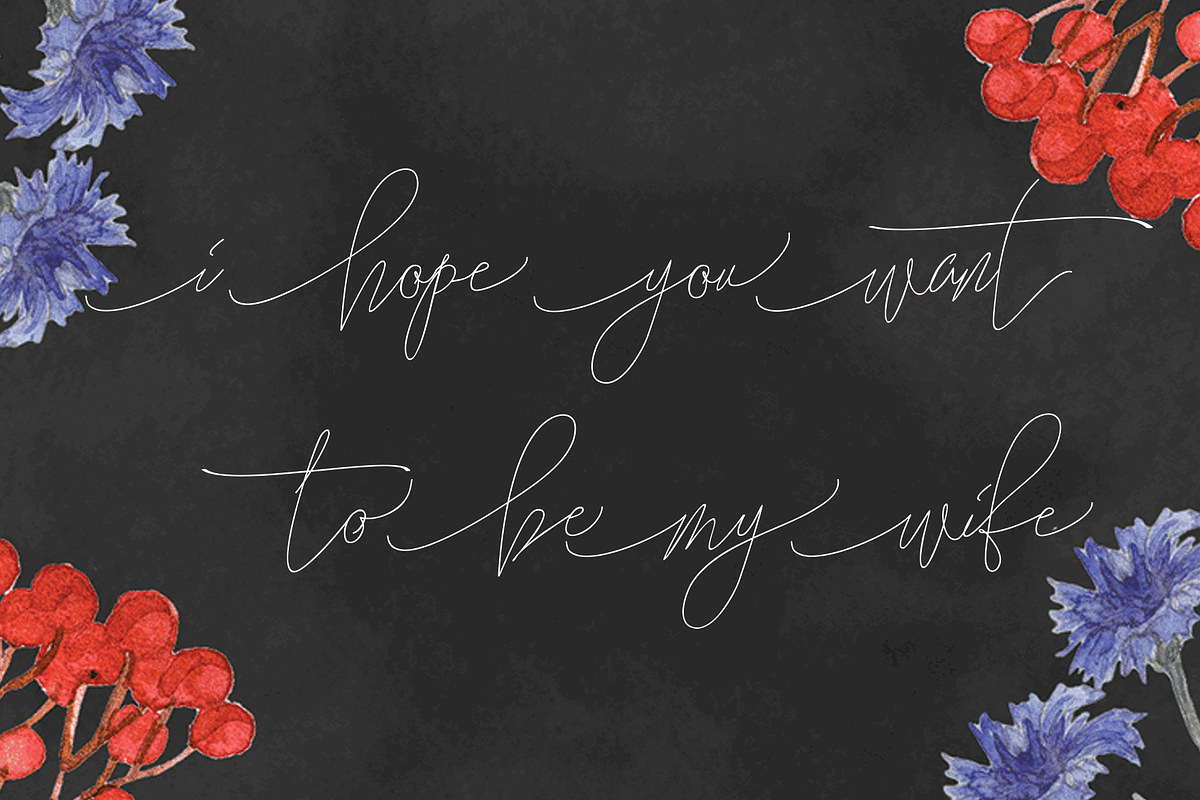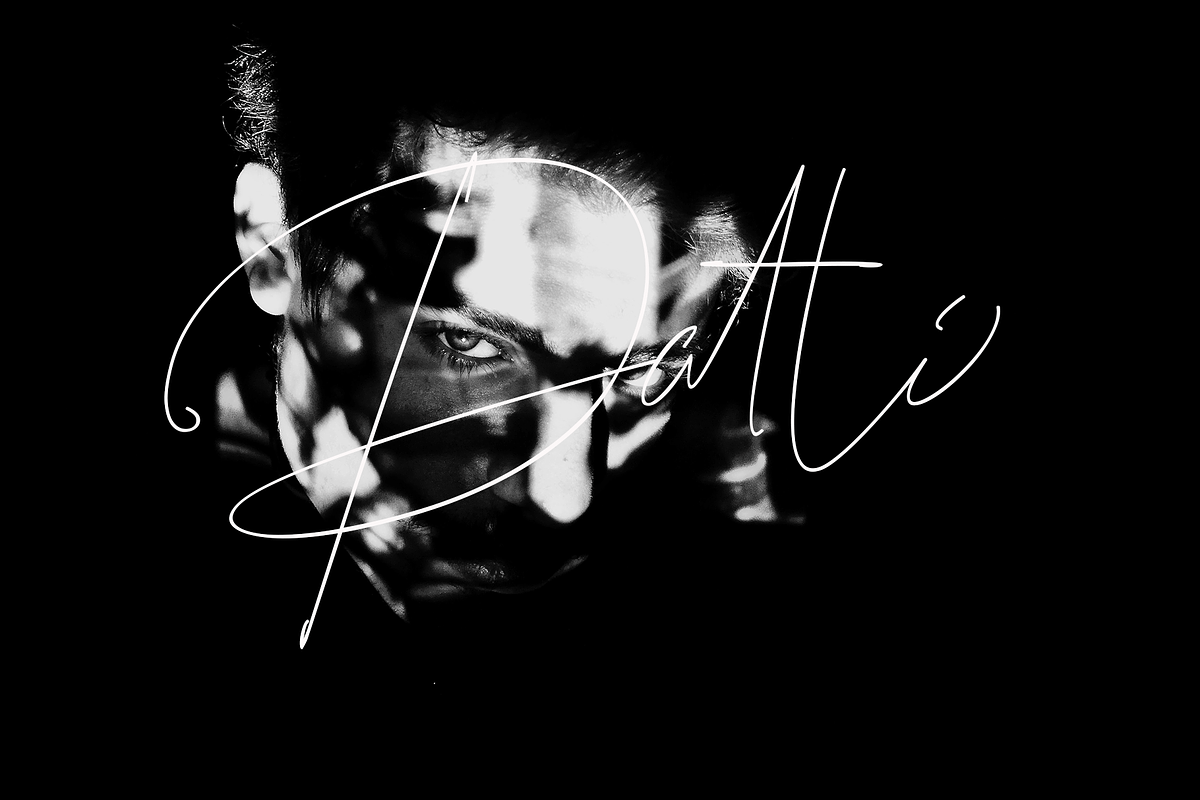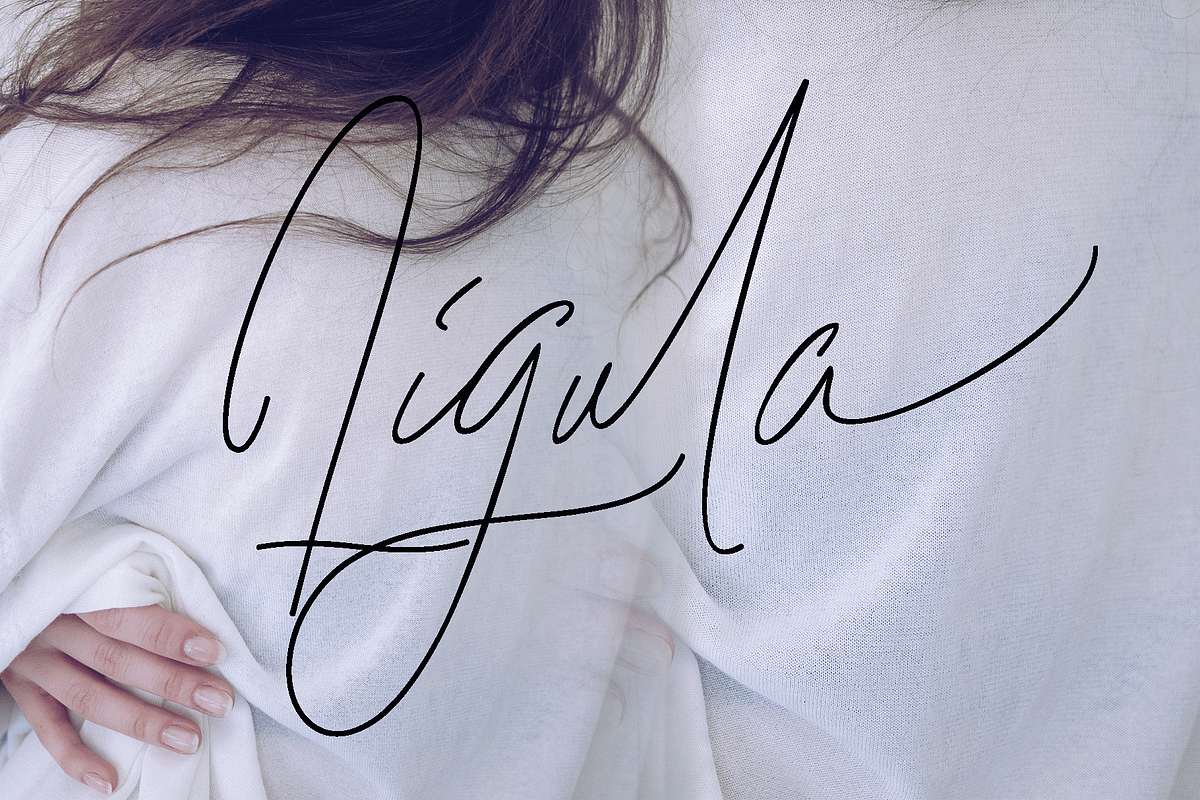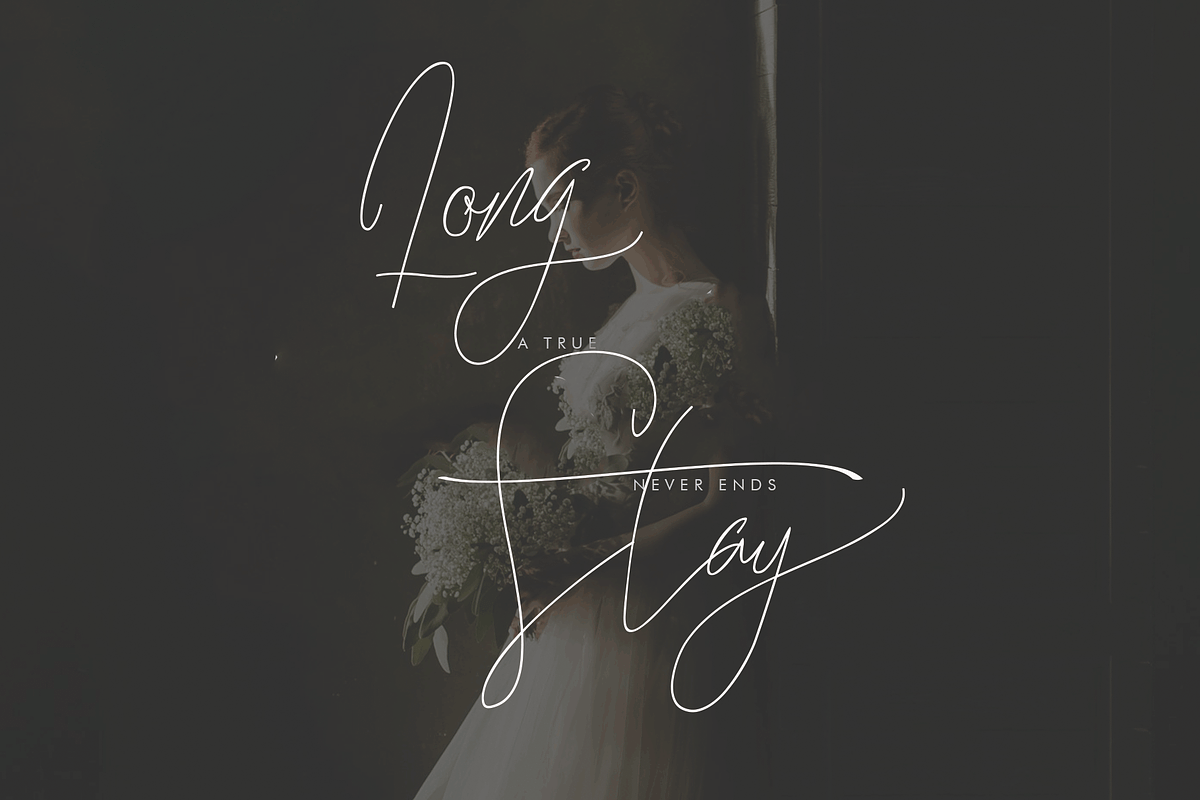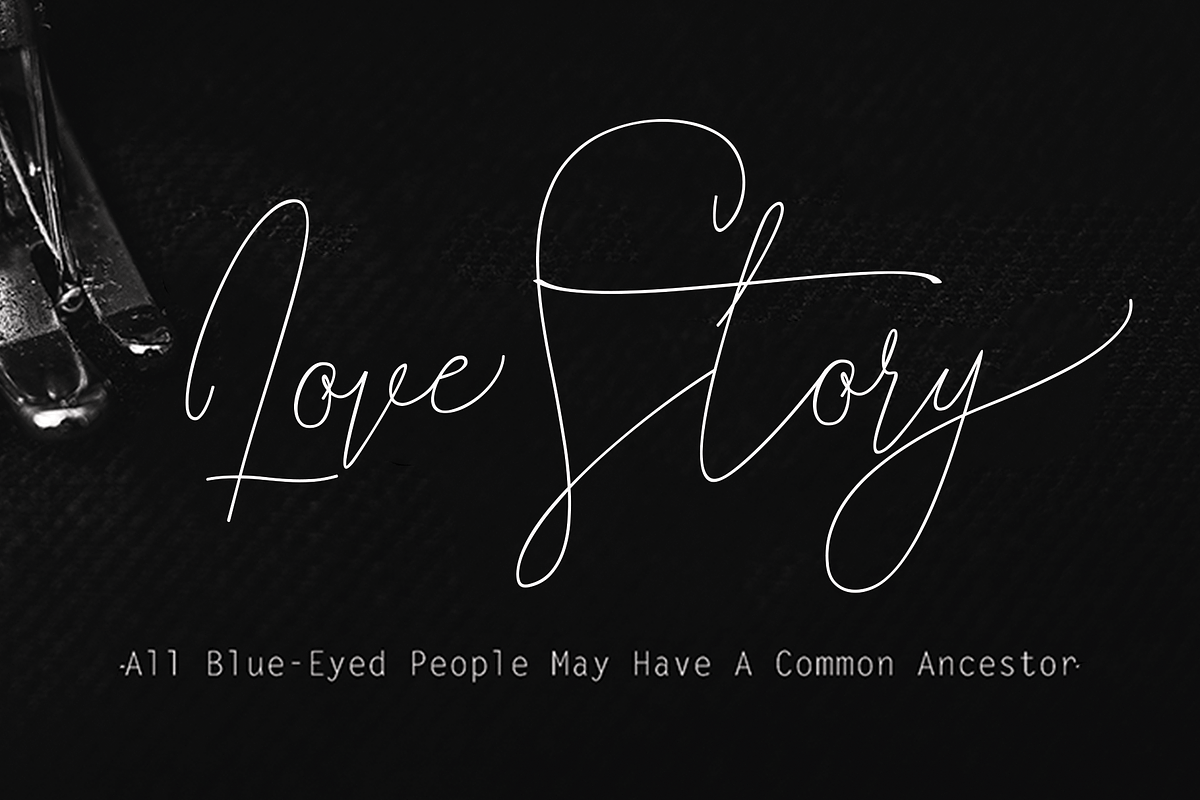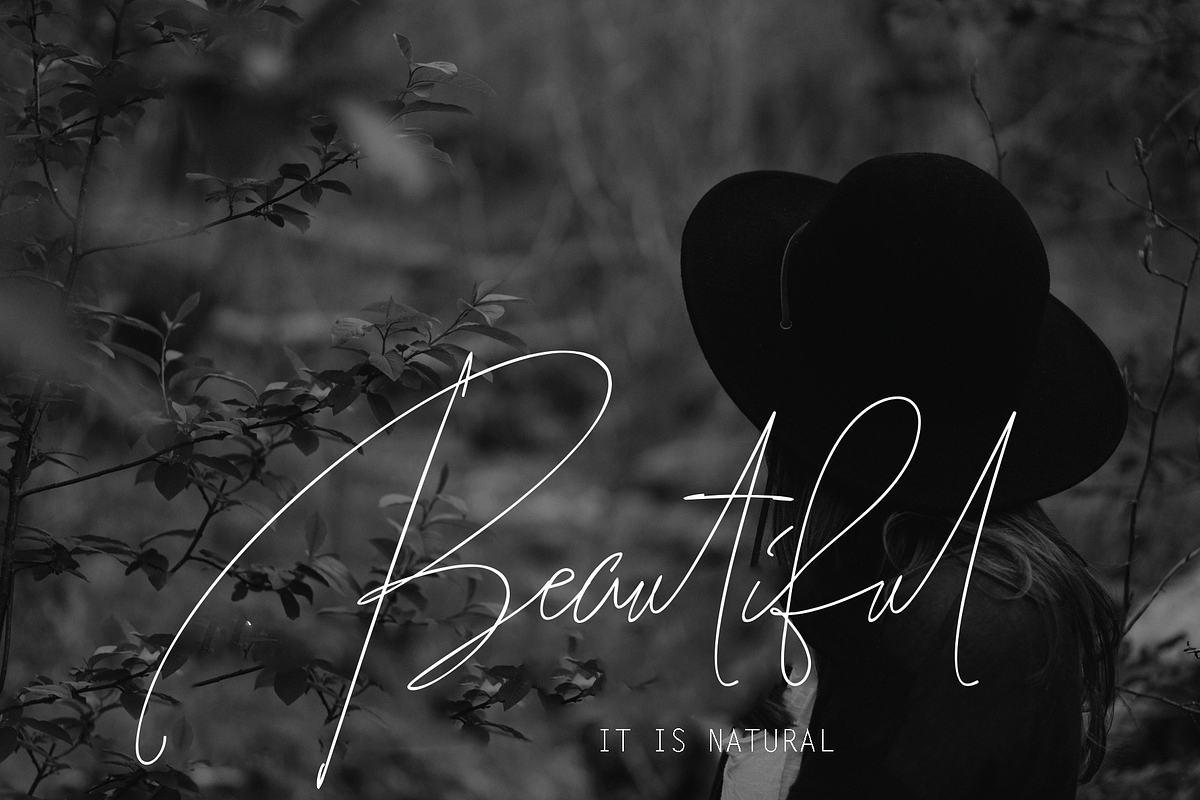
Love Story
Love Story, a work that is purely handwritten, has natural characteristics. It's perfect for invitations, signatures, blogs, social media, business cards, product brands.
Love Story is a simple font that has Stylistic standards, Stylistic Alternatives, Ligature, Swash, and includes uppercase and lowercase letters, numbers and punctuation.